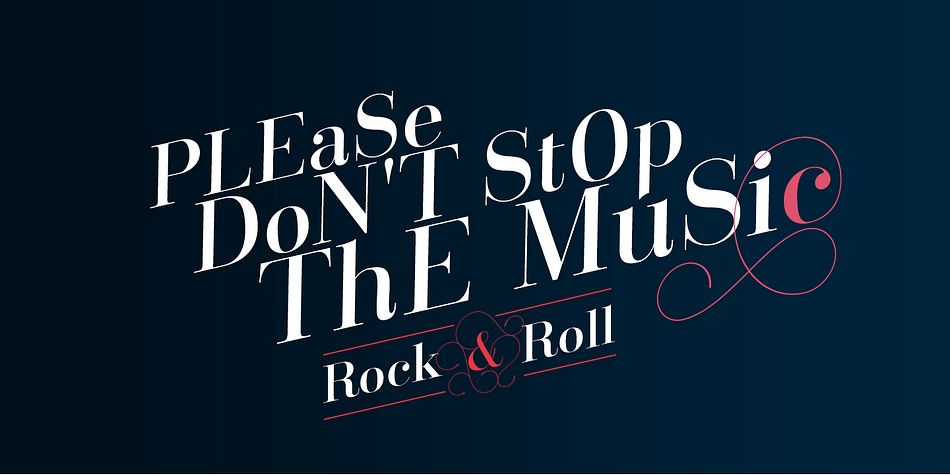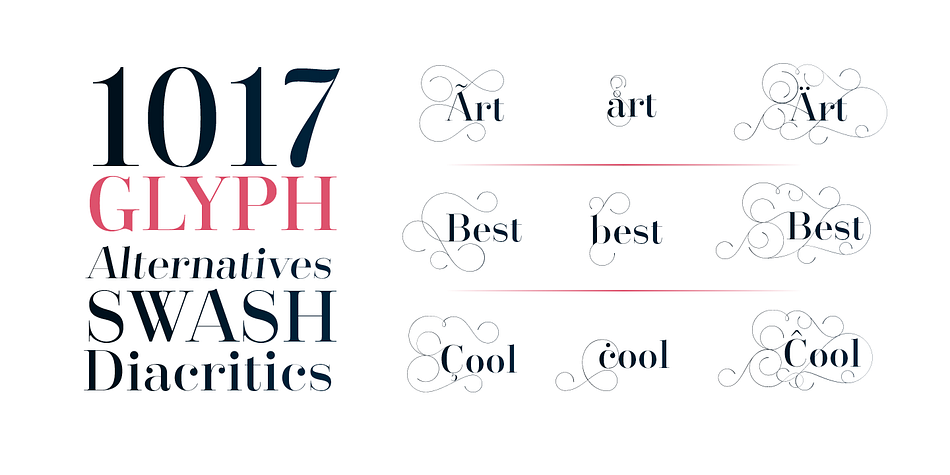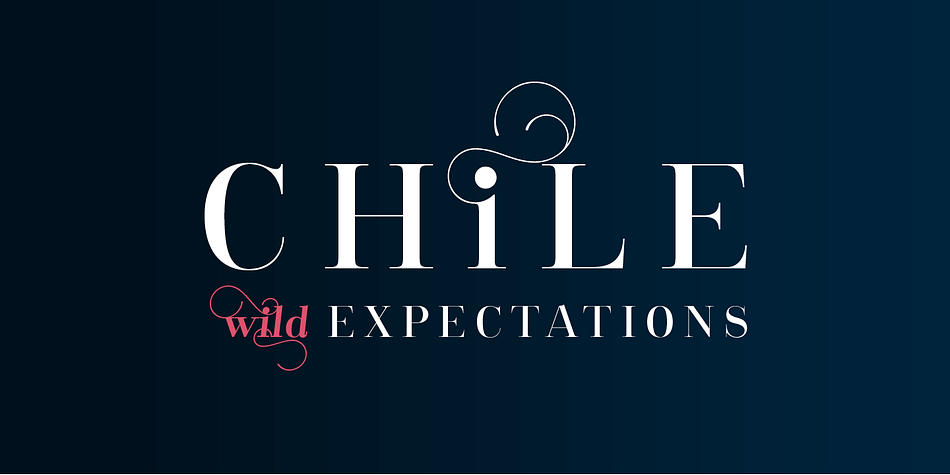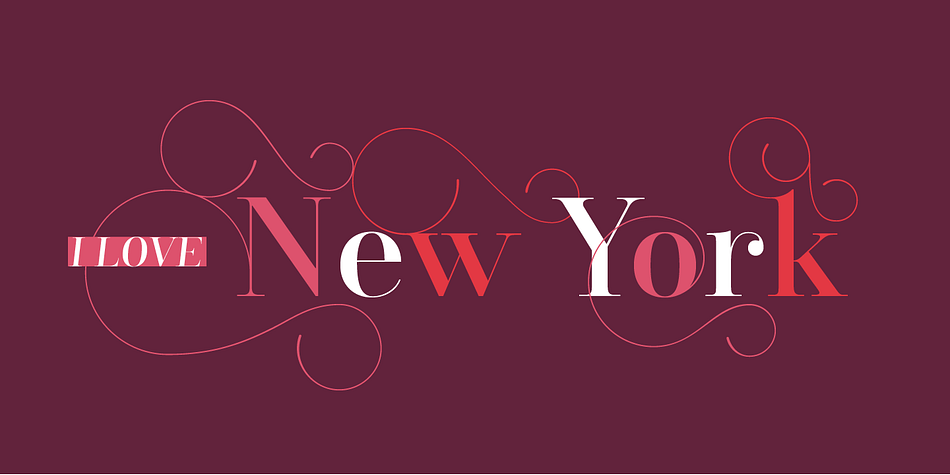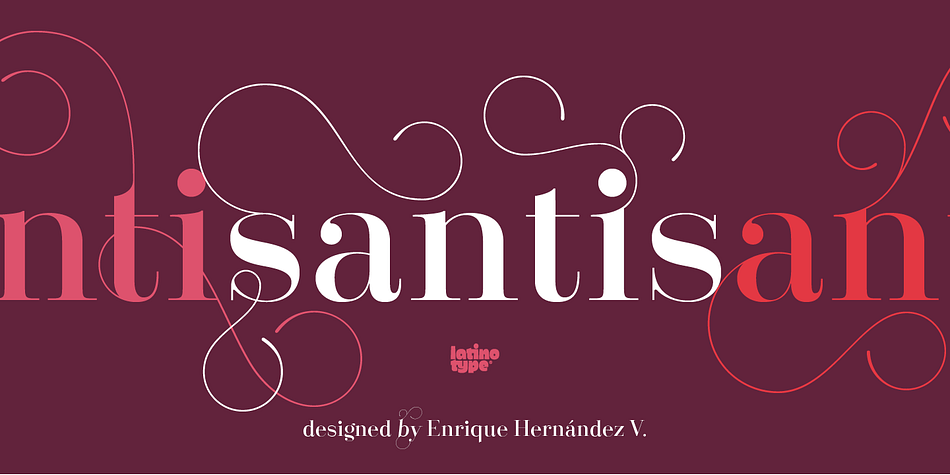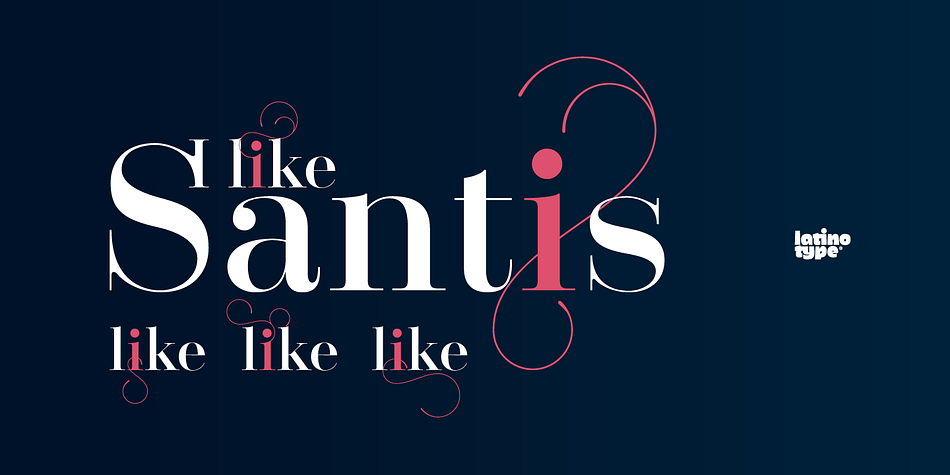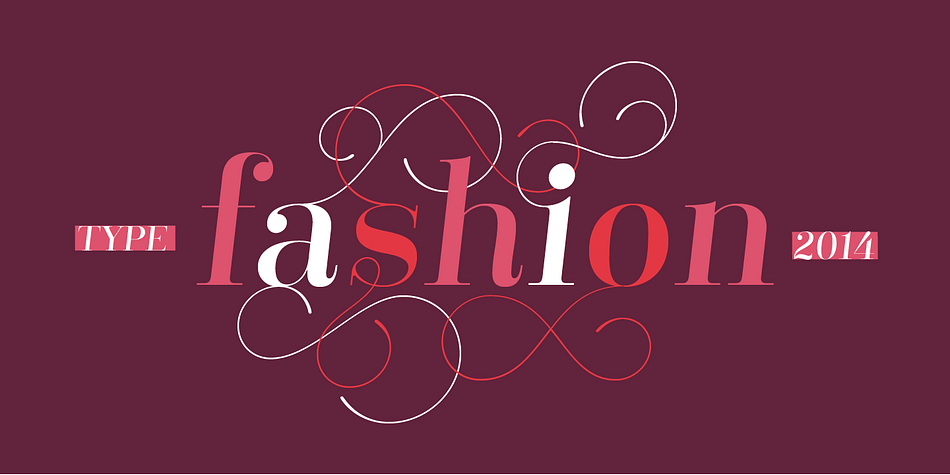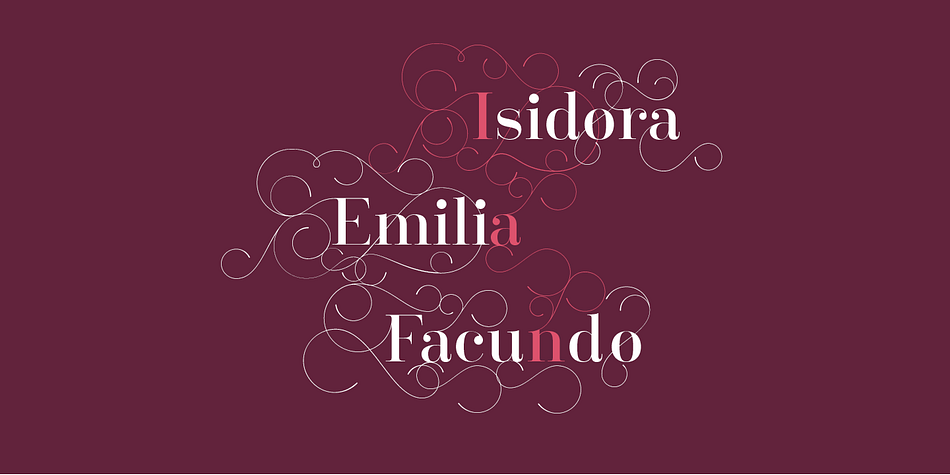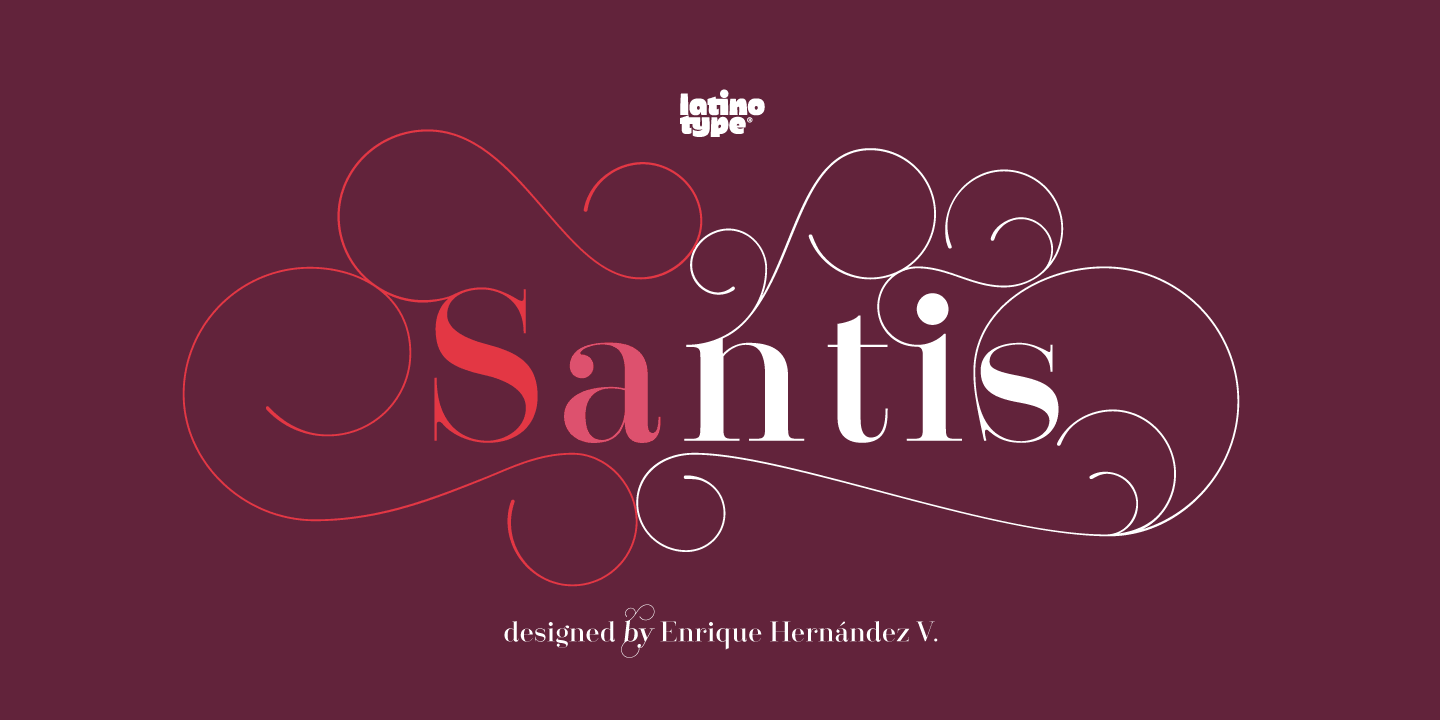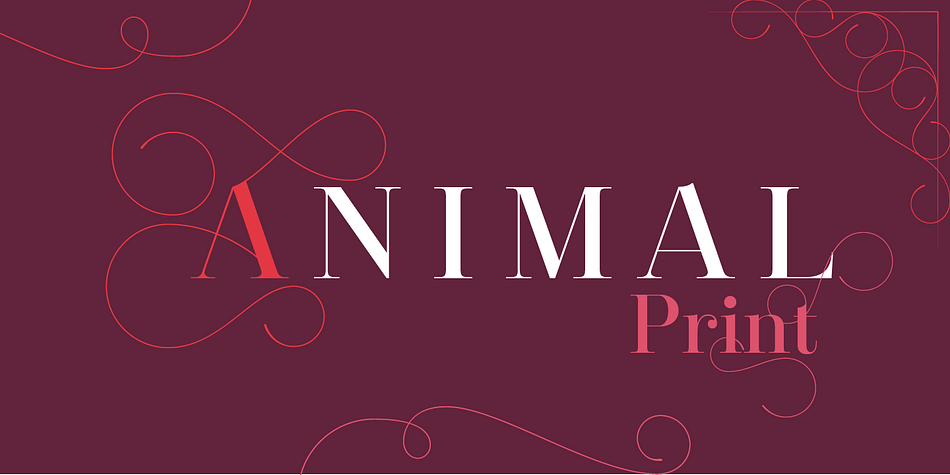
Santis is a serif font family. This typeface has four styles and was published by Latinotype.
Santis is a multiface type, special for logos, brands, magazines and editorial world.
Especially for setting trends in fashion and design.
The particularity of this font is that you can easily read it, even when applying swash type letters. It is a Didot based font. Santis versatility can harmoniously display a word or phrase.
Santis has 1017 glyphs with alternate characters, numbers and ligatures ornaments specially created for a better design.